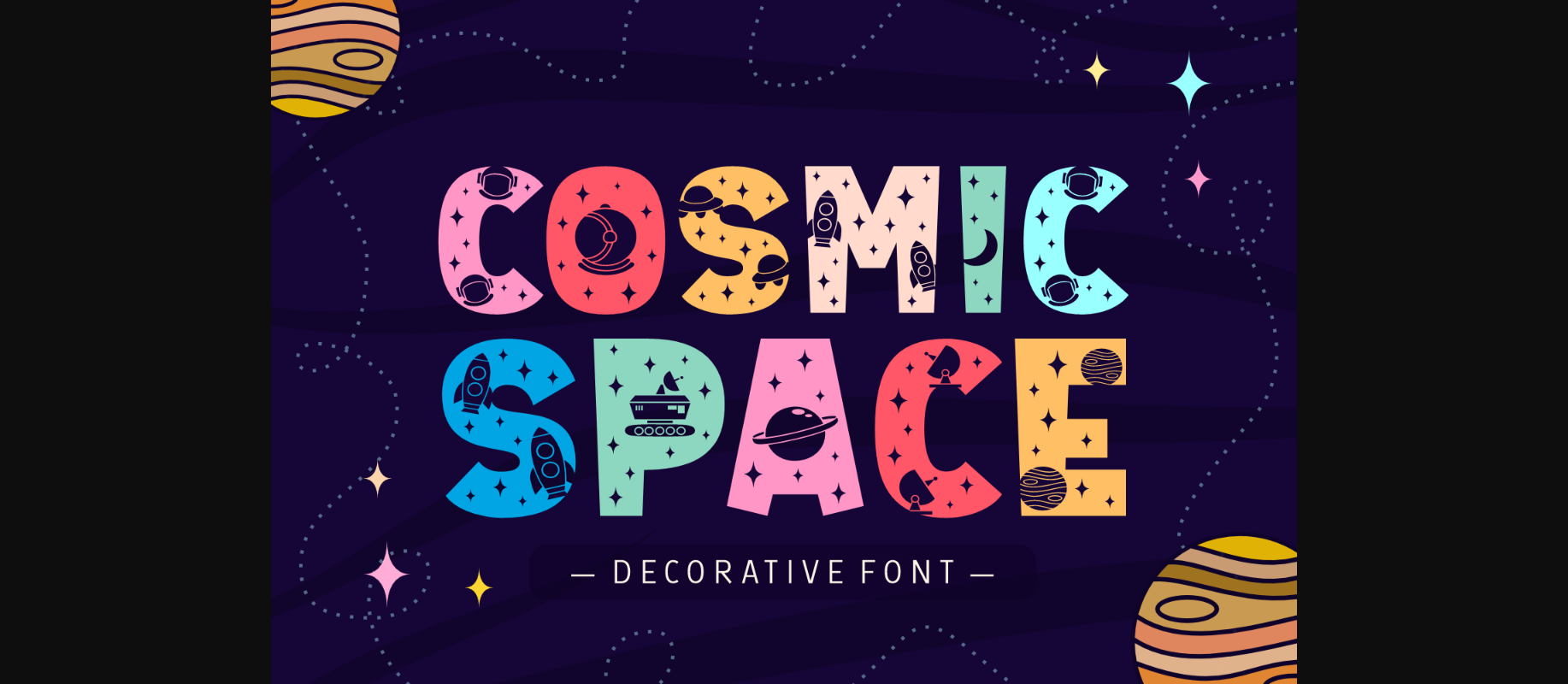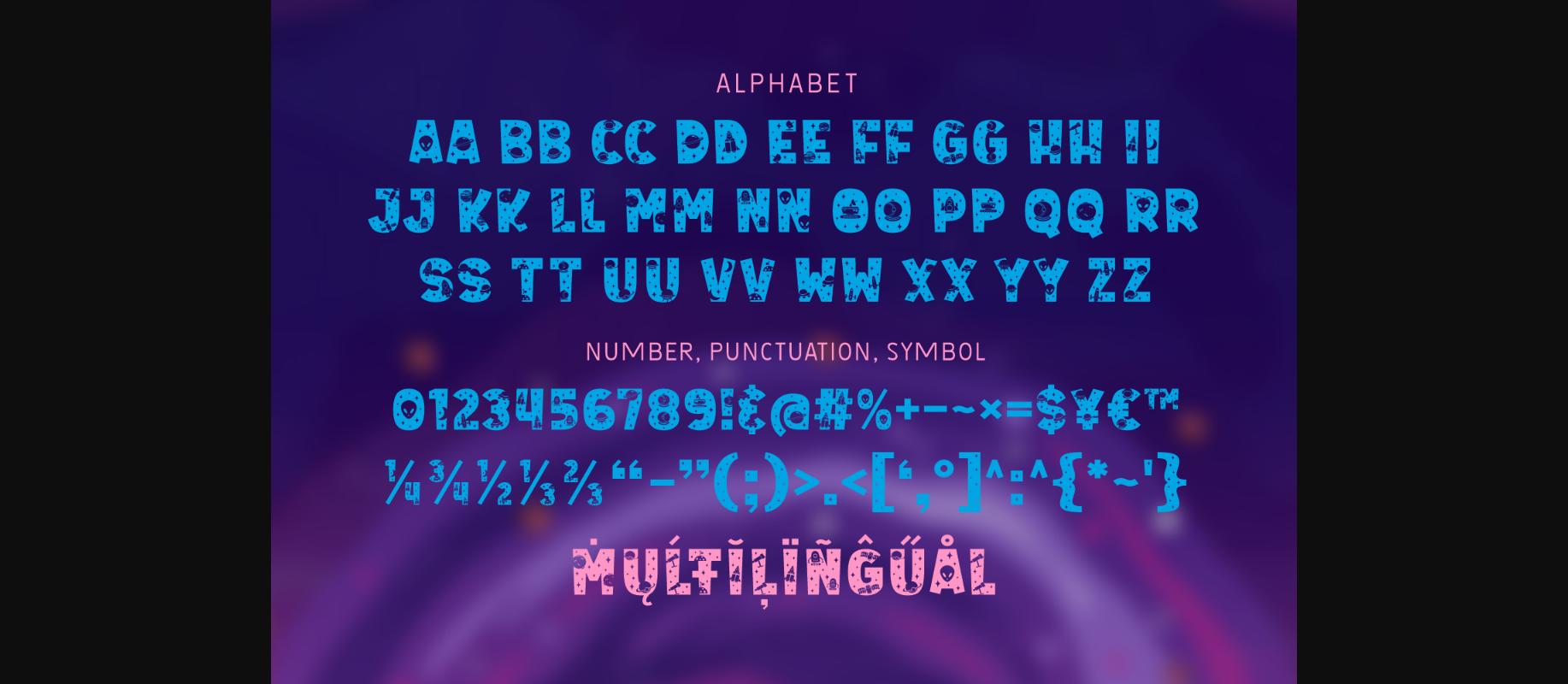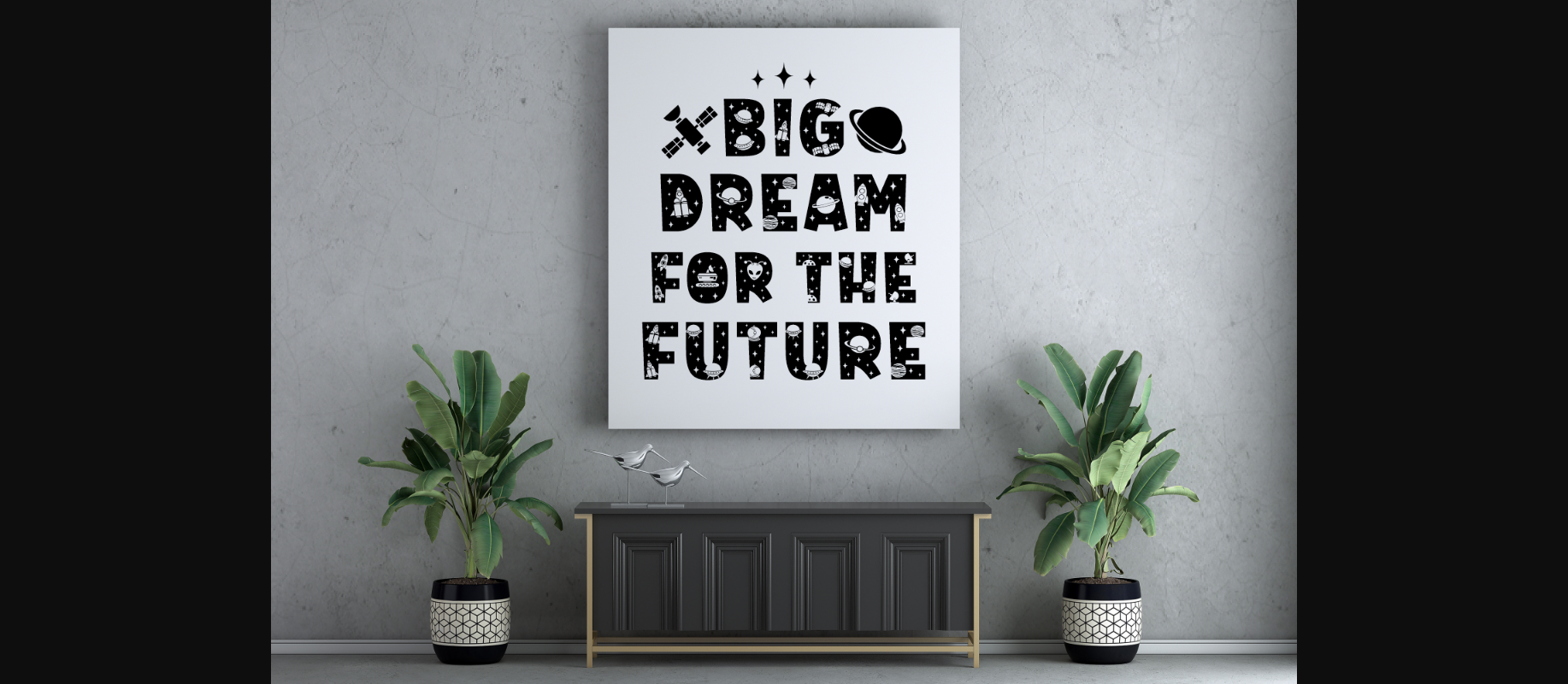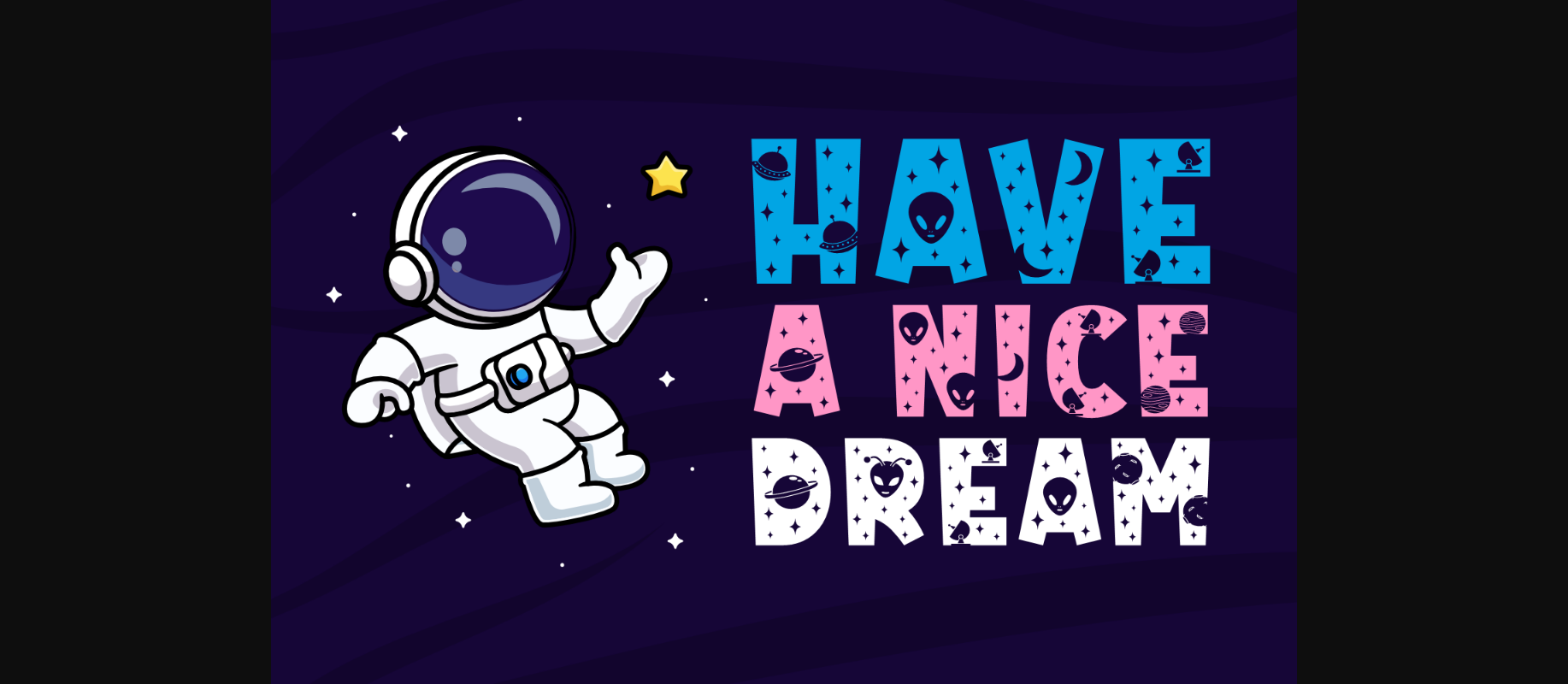
About Cosmic Space Font
Cosmic Space is an imaginative font that artistically encapsulates the enchanting allure of the cosmos. Immerse yourself in the captivating visuals of the solar system, the infinitely extensive galaxy, the limitless expanse of space, and the innovative marvels of spacecraft. Perfectly tailored for the young at heart and astronomical enthusiasts, this font radiates a celestial charm that’s universally appealing. Cosmic Space is equally popular among craft enthusiasts owing to its quirky and distinctive style. It’s not just a font, it’s an odyssey into the astronomical world, grabbing the essence of the universe and casting it directly into your designs.